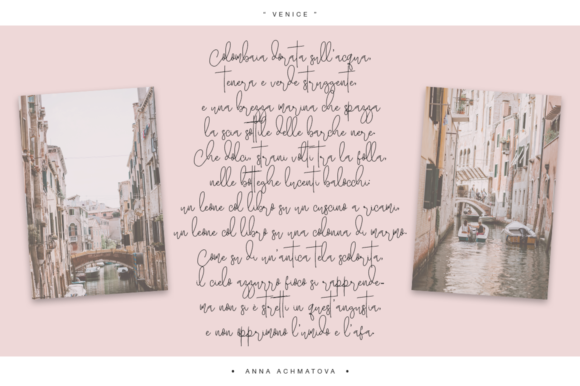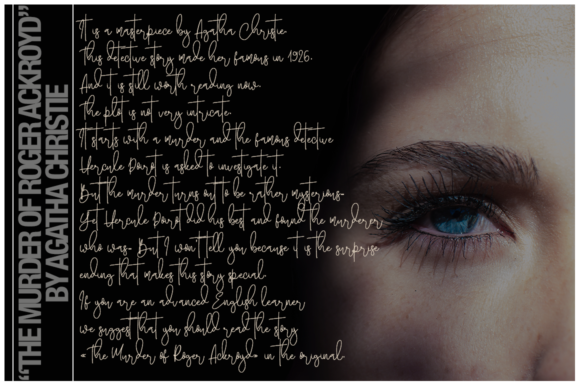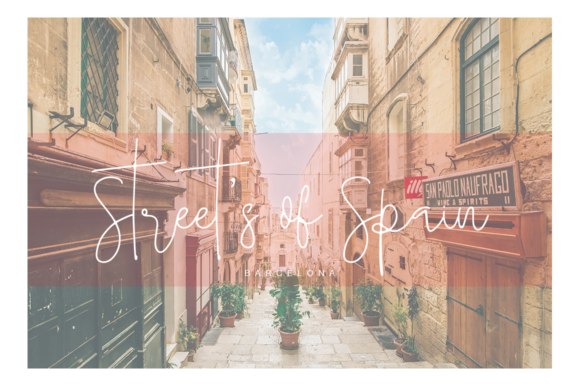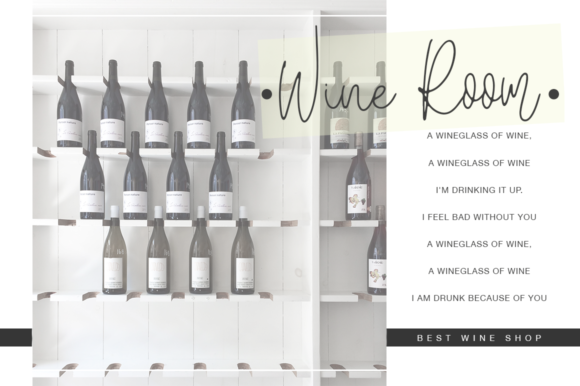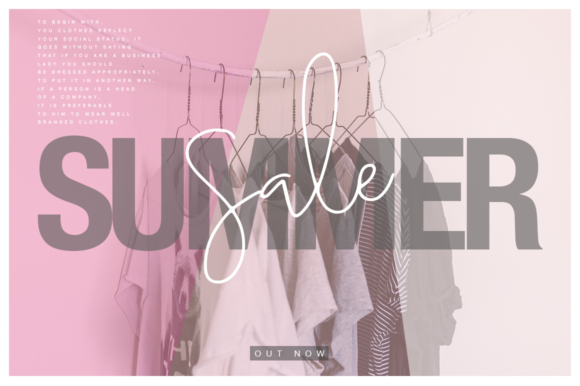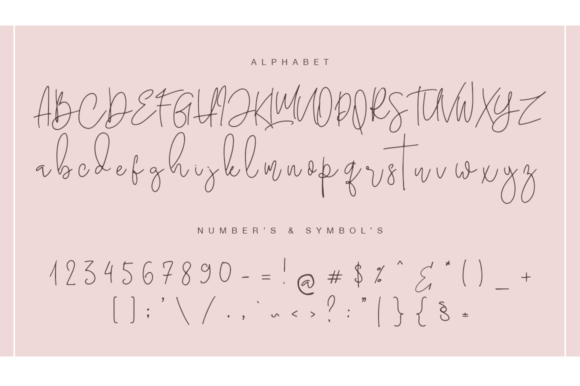
Introduction to Salt Lake Font
The Salt Lake is a fresh, handmade calligraphy font.
It has a modern and feminine look which makes it perfect for a wide variety of designs .
Key Features of Salt Lake Font
Why Choose Salt Lake Font?